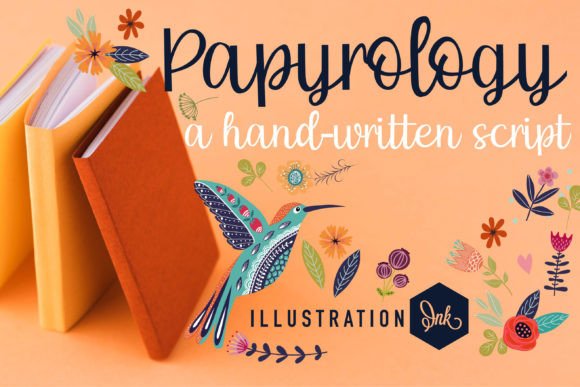
Introducing Papyrology Font, the ultimate choice for those seeking a font that beautifully captures the art of cursive writing. Created by the talented Illustration Ink, this script font is a true masterpiece, exuding elegance and sophistication with every stroke.
With its fluid strokes and delicate curves, Papyrology Font is a stunning handwritten font that will leave a lasting impression. Each letter is meticulously crafted with impeccable attention to detail, resulting in a timeless and refined aesthetic that is sure to elevate any design.
Whether you're creating invitations for a special event or working on a branding project, Papyrology Font is the perfect choice. Its intricate yet legible design adds a touch of charm and elegance to any piece, making it ideal for high-end applications.
Imagine the impact of your wedding invitations adorned with this exquisite font. The flowing lines and graceful curves will enchant your guests, setting the tone for a truly memorable occasion. Papyrology Font adds a personal touch, making your invitations feel like a work of art.
Branding projects also benefit greatly from the allure of Papyrology Font. Its sophisticated and refined appearance instantly elevates your brand, conveying a sense of class and professionalism. Stand out from the crowd and leave a lasting impression on your audience with this captivating font.
But Papyrology Font isn't just visually appealing; it also evokes a range of emotions. Its graceful and flowing nature creates a sense of calm and tranquility, making it perfect for designs aimed at promoting relaxation and well-being. Let your designs speak to the heart and soul of your audience with this emotionally captivating font.
In conclusion, Papyrology Font is a must-have for anyone looking to add a touch of elegance and sophistication to their designs. Its fluid strokes, delicate curves, and impeccable attention to detail create a timeless and refined aesthetic that is sure to captivate your audience. Download Papyrology Font today and unlock a world of creative possibilities.